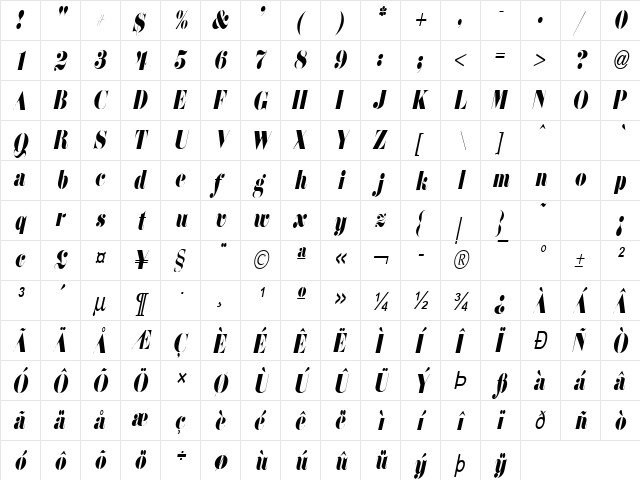
Floral-Condensed Italic Font Preview
Design Context for Floral-Condensed Typeface
Floral-Condensed is a composed and adaptable typeface that performs quietly and consistently across a wide range of design contexts. The dynamic lean of this cut emphasises speed and emphasis in any layout. Its narrow stance lets it pack a punch even in space-constrained designs.
Pro Tip: Try Floral-Condensed for annotation and caption copy alongside an upright companion — the contrast in angle creates a dynamic but ordered typographic system.